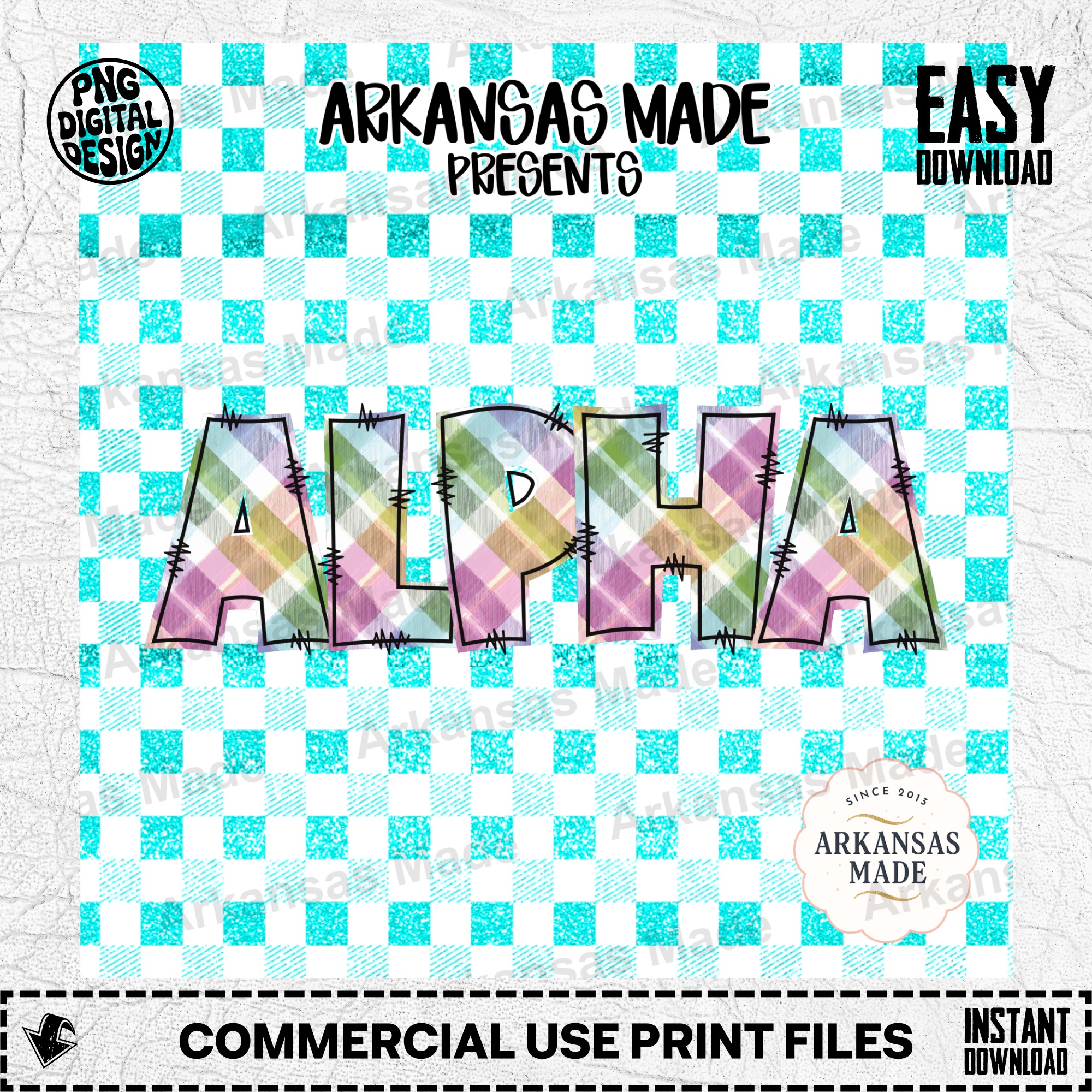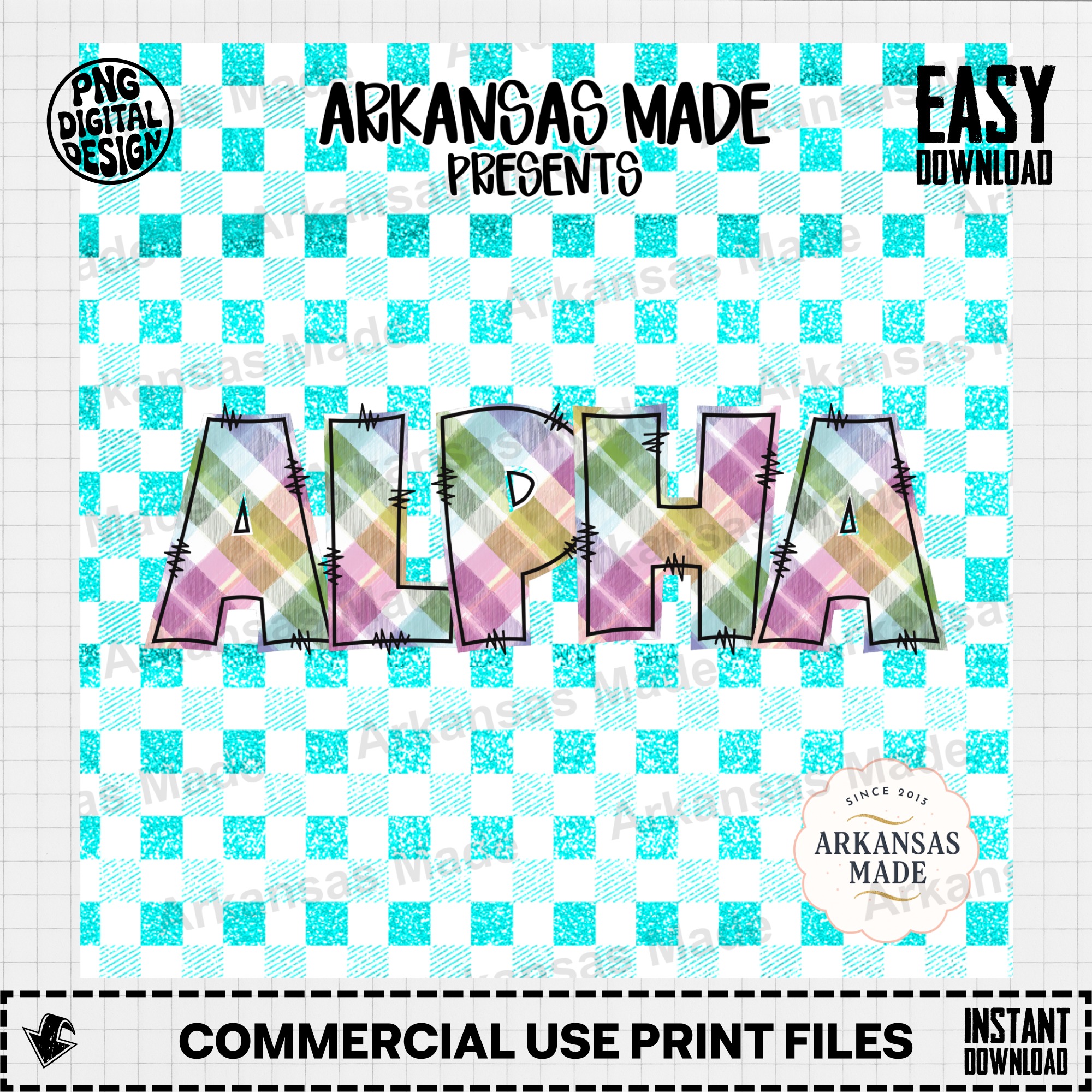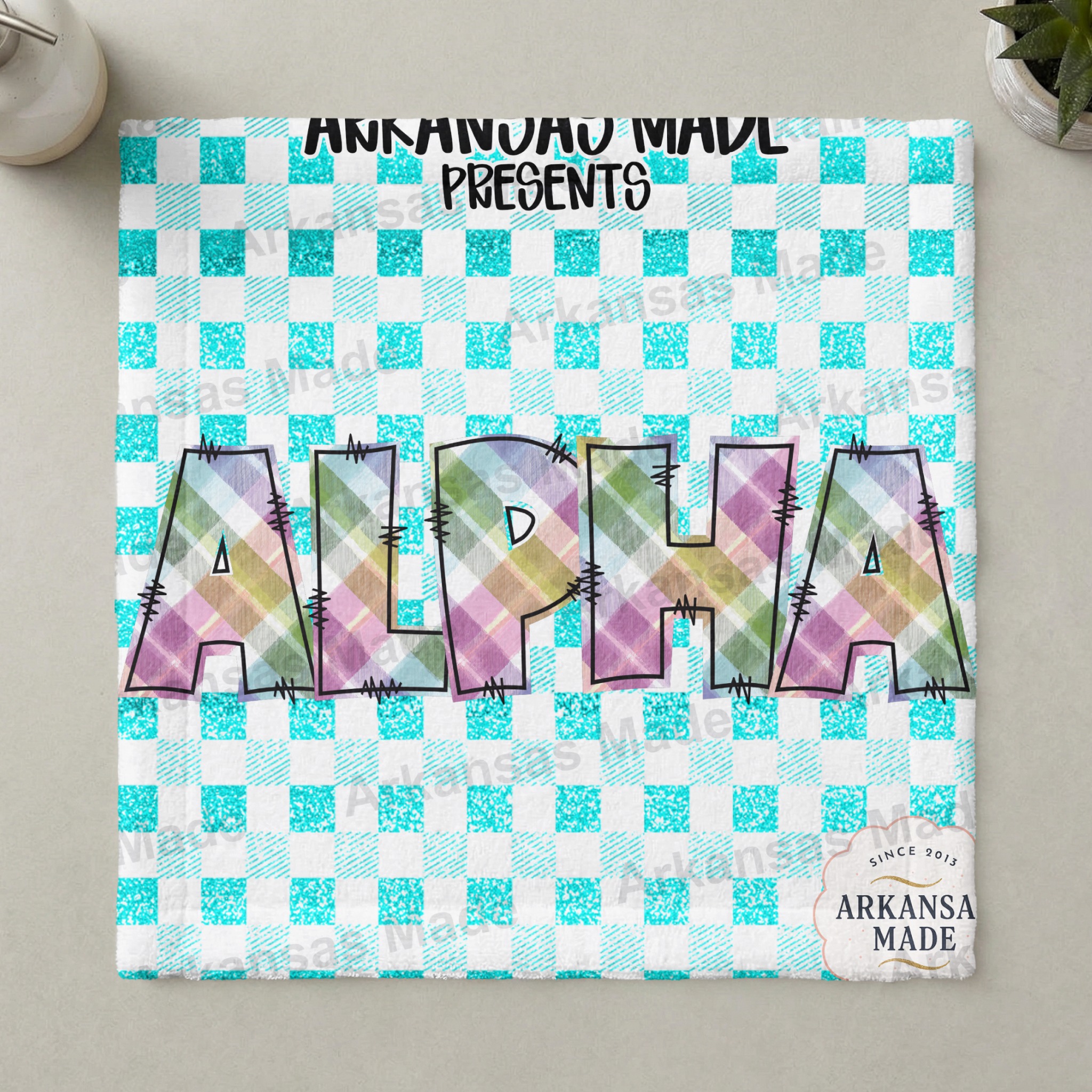
Alpha Digital Download Set Plaid Glitter PNG, Sorority Letters, Greek Alphabet, Preppy Pastel Font, Sublimation Design, Craft Clipart
Dive into crafting with our vibrant Alpha Digital Download Set, featuring preppy plaid letters with faux glitter accents, perfect for sorority projects and creative endeavors. This whimsical alphabet PNG collection captures a playful, collegiate vibe, ideal for personalizing gifts, creating stunning sublimation designs, or enhancing small business branding. Whether for a proud sorority sister, a creative crafter, or a teacher decorating a classroom, these unique letters add a sparkling touch to any occasion.